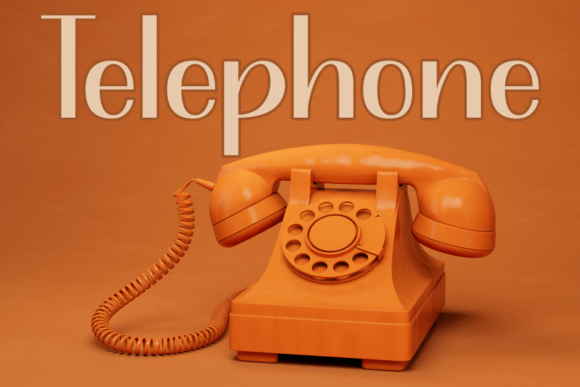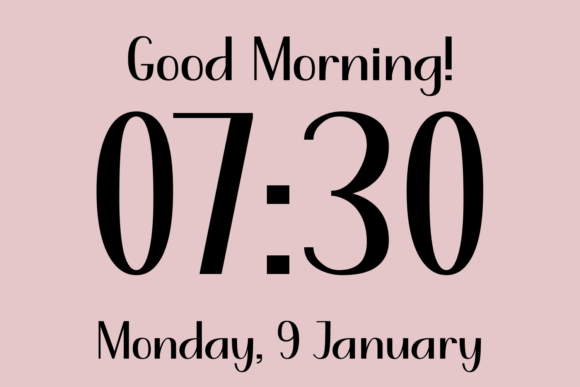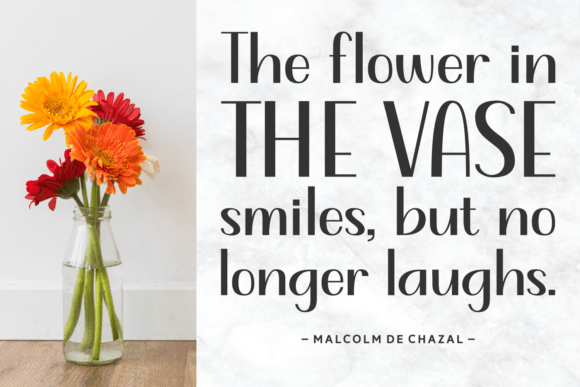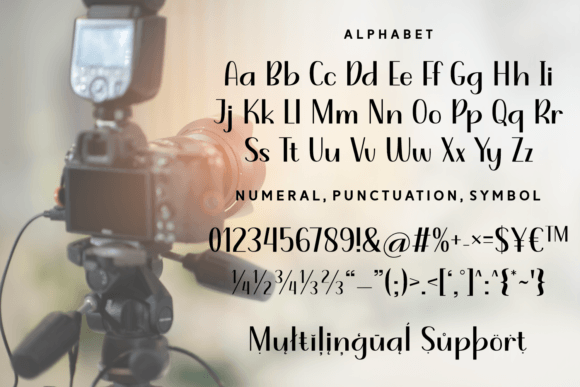
Spark Your Creativity with Evening Inspiration Font
Have you ever found yourself staring at a blank canvas, struggling to come up with the perfect design? It’s a feeling many creatives know all too well. But sometimes, all it takes is a single spark to ignite a wave of inspiration. For designers, the right font can be just that spark.
Enter Evening Inspiration Font, a clean and elegant sans serif font designed to bring modern style and sophistication to your projects. With its versatility and wide range of applications, this typeface is perfect for everything from invitations and posters to business cards and websites. Whether you’re looking to create a lasting impression or simply elevate your brand, Evening Inspiration Font is the perfect tool to help you achieve your design goals.
Evening Inspiration Font Key Features
- Font Family: Evening Inspiration
- Font Size: Supports font sizes from 8 to 120 points
- Resolution: Optimized for high-resolution displays (Retina, HD, etc.)
- Unique Characteristics: Elegant, modern script font with a subtle flair; ideal for creative and inspirational content
- Language Support: Supports multiple languages, including Latin, Cyrillic, and Greek scripts
- Font Weight: Includes regular and bold weights for versatility
Designer Review: Evening Inspiration Font
Overall, I think Evening Inspiration Font is a beautiful and elegant addition to any design project. The font is perfect for creating a sophisticated and mysterious atmosphere, especially when used in conjunction with darker color schemes.
- The font’s fluid and organic feel makes it ideal for creative and artistic projects.
- The high contrast between the thick and thin strokes adds depth and visual interest.
- The font is highly legible, even at smaller font sizes, making it a great choice for body text.
- The font’s versatility makes it suitable for a wide range of design applications, from advertising to editorial design.
- The font may be too ornate for some projects, potentially overwhelming the content.
- The font’s complexity may make it difficult to pair with other fonts, potentially limiting its use in multi-font designs.
- The font’s high contrast may not be suitable for projects with complex layouts or multiple colors.
Overall, I would recommend Evening Inspiration Font for designers looking to add a touch of sophistication and elegance to their projects. However, it’s essential to consider the font’s limitations and ensure it aligns with the project’s goals and style.
For the most effective use of Evening Inspiration Font, consider the following tips and use cases:
– Use the font for inspirational quotes, titles, and headings.
– Pair the font with complementary colors and backgrounds to create a visually appealing design.
– Experiment with different font sizes and styles to add depth and hierarchy to your design.
Alternatives to Evening Inspiration Font for Designers
Great Vibes is a beautiful, elegant script font perfect for adding a touch of sophistication to your designs. It’s ideal for use in titles, headings, and quotes where you want to convey a sense of luxury and refinement.
Compared to Evening Inspiration Font, Great Vibes has a more refined and elegant feel, making it suitable for high-end designs and branding projects.
Alex Brush is a stunning script font with a hand-painted feel that’s perfect for adding a touch of warmth and personality to your designs. It’s ideal for use in titles, headings, and body text where you want to convey a sense of creativity and individuality.
Compared to Evening Inspiration Font, Alex Brush has a more organic and handcrafted feel, making it suitable for designs that require a unique and personal touch.
Dancing Script is a lively and elegant script font perfect for adding a touch of whimsy and fun to your designs. It’s ideal for use in titles, headings, and quotes where you want to convey a sense of playfulness and energy.
Compared to Evening Inspiration Font, Dancing Script has a more dynamic and playful feel, making it suitable for designs that require a sense of movement and excitement.